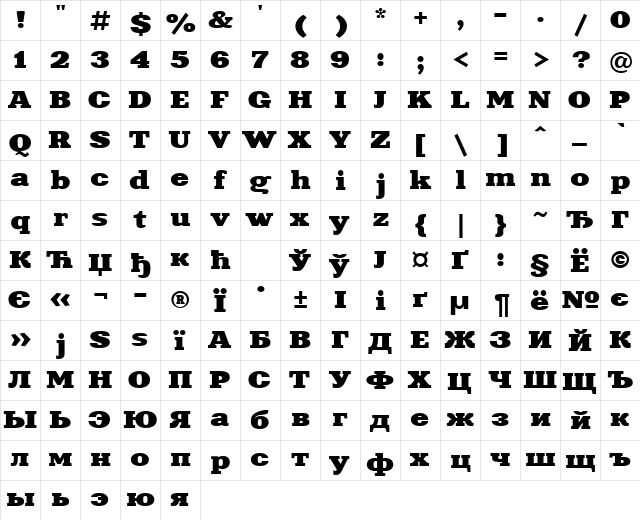
XeniaExtendedCTT Bold Font Preview
XeniaExtendedCTT Bold
XeniaExtendedCTT Bold Font Details
Design Context for XeniaExtendedCTT Typeface
XeniaExtendedCTT is a composed and adaptable typeface that performs quietly and consistently across a wide range of design contexts. The heavy weight commands attention and anchors typographic hierarchies.